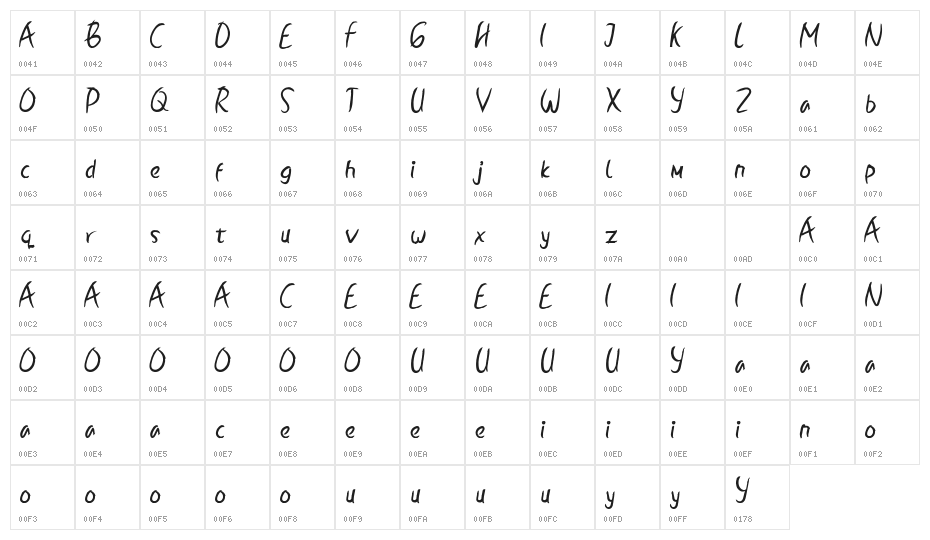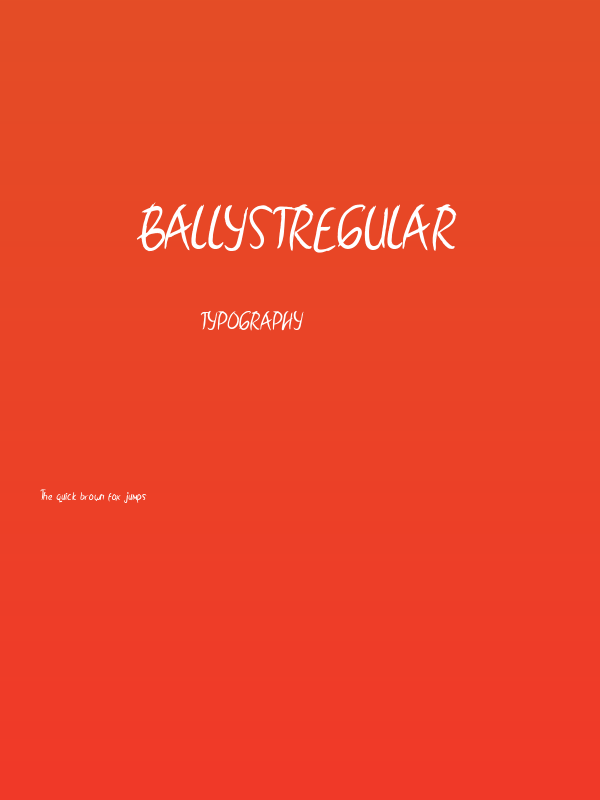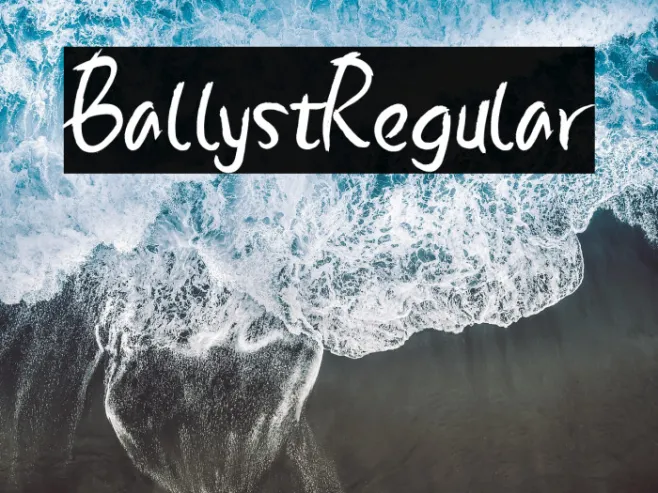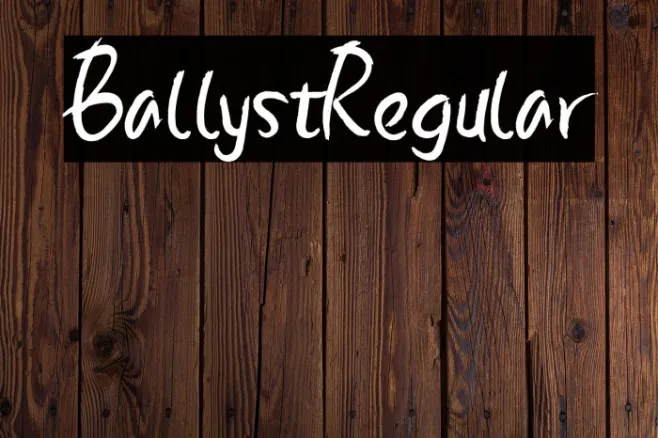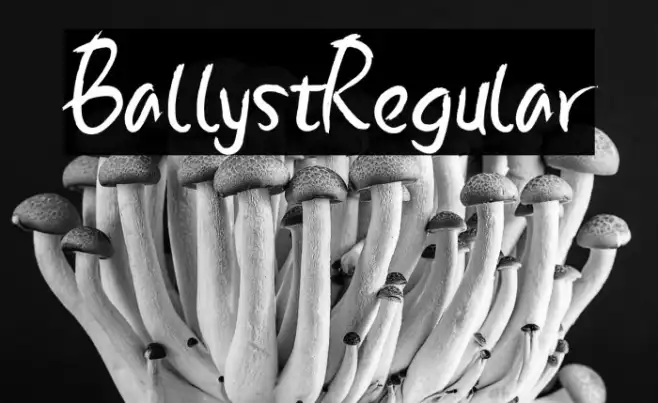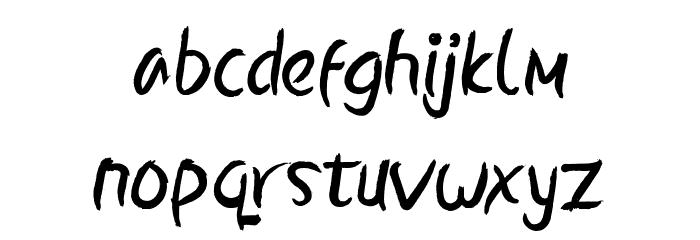
BallystRegular Font
BallystRegular Description
This font features a dynamic and energetic handwritten style with a slight slant, giving it a casual yet sophisticated appearance. The strokes are fluid and organic, with varying thickness that adds a sense of movement and personality. The uppercase letters are bold and prominent, while the lowercase letters maintain a consistent flow, enhancing readability. The overall design is balanced, with a playful touch that makes it suitable for creative projects. The lack of special characters suggests a focus on simplicity and elegance.
| Proposed Projects | Ideal for branding, invitations, greeting cards, and creative projects that require a personal touch. |